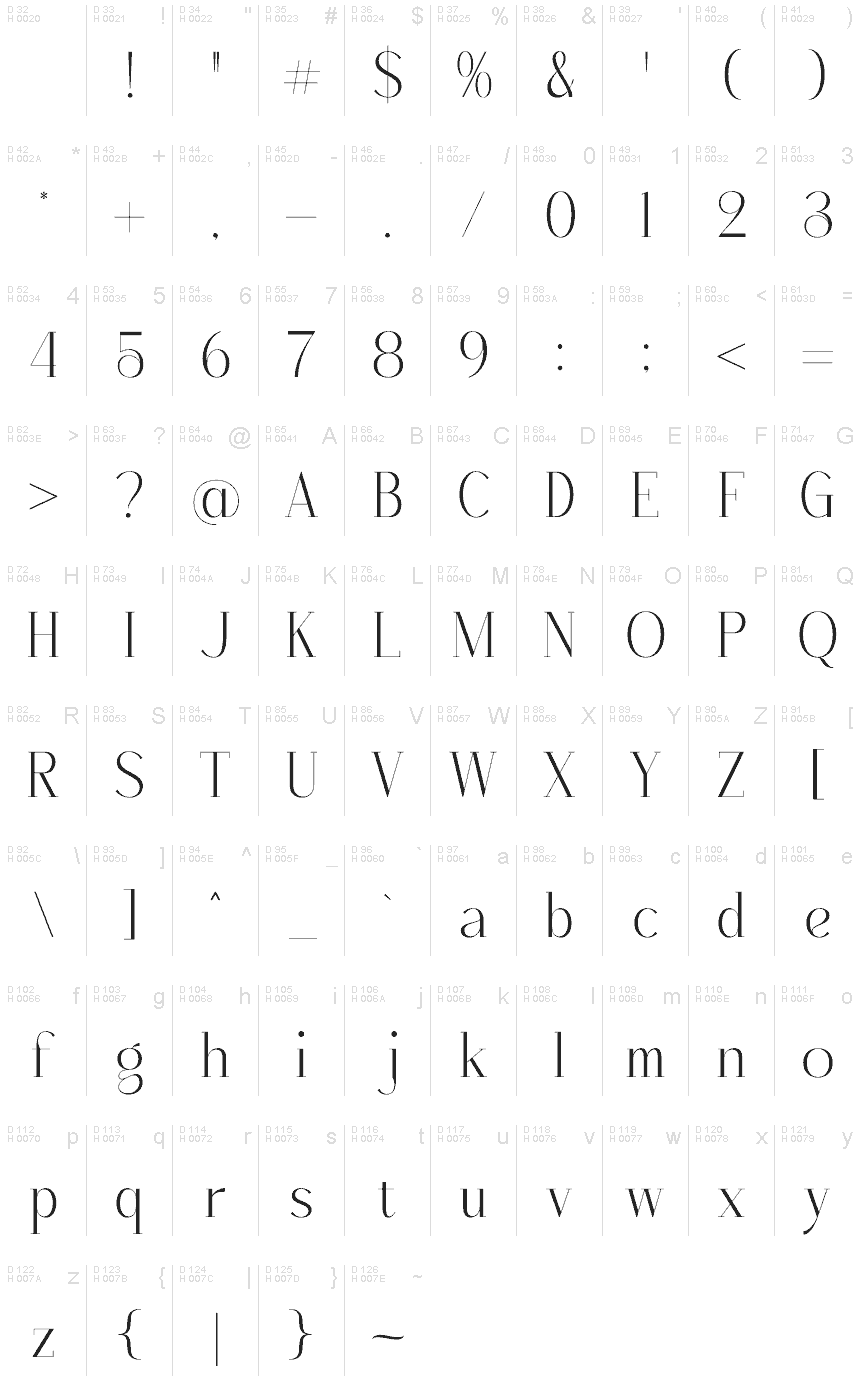
Qenliago
Qenliago font is a high-contrast light serif font from Storytype Studio. Designed with elegance and sophistication in mind, it combines graceful curves with refined edgy strokes which give the text a modern fine art feel. The font naturally conveys a feeling of speciality and authority through its overall appearance.
Use this free serif font for texts in magazines and newspapers, book or album covers, signage, labels, branding, logos etc. Enjoy premium results when you use Qenliago for official documentation whether public or internal. Business cards and invitation cards are some more areas in which this typeface will be suitable as well!